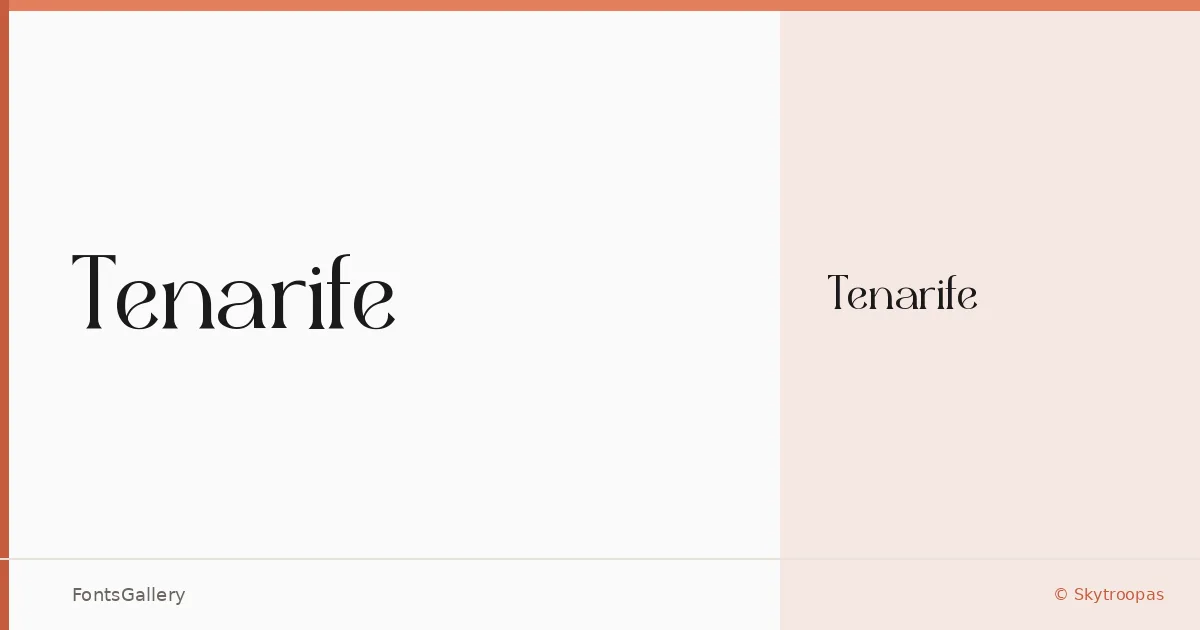
About Tenarife Font
There is a quiet confidence in the serifs here — sharp enough to feel contemporary, weighted enough to carry authority. Tenarife is a serif typeface from Skytroopas Team, released under the Skytroopas label, offered as a single Regular cut in both TTF and OTF formats.
The design sits at the intersection of classic structure and modern restraint — the kind of serif that reads as elegant without leaning into ornament. Its luxury and classic mood comes through in the proportions rather than any decorative flourish, which keeps it grounded enough for business contexts and refined enough for editorial ones. With only the Regular weight in the family, the letterforms have to do their work on their own, and they hold up.
It earns its place in branding work, on business cards, in logo lockups, and as a magazine or website header where a strong first impression is the entire job. Latin coverage is partial, so verify your character requirements before committing to a project with extended language needs. It pairs well alongside Helvetica, Ballmain, Alexandria, Batoshi, and Audex — the neutrality of a clean sans or the personality of a display face both complement the structured elegance it brings.